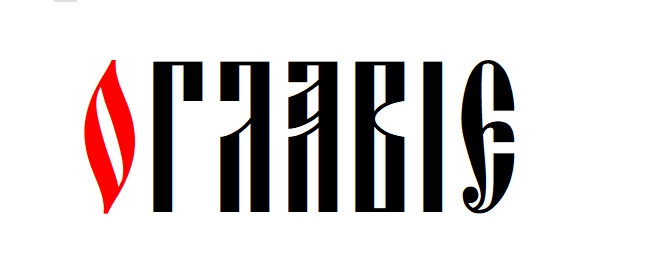
Oglavie Unicode Font
Oglavie Unicode Font is perfect for international publishing projects, multilingual corporate communications, global educational materials, cultural documentation systems, diplomatic correspondence, cross-cultural branding initiatives, academic research publications, and worldwide advertising campaigns. This comprehensive typeface works exceptionally well in both digital applications and print media where multilingual excellence and global accessibility are fundamental design requirements.
What makes Oglavie Unicode Font so exciting is its masterful interpretation of global communication needs through systematically designed letterforms that provide seamless support for diverse languages and scripts while maintaining consistent visual quality across all cultural contexts. The font features internationally optimized characters with universal proportions, cross-cultural spacing, and multilingual details that communicate global competence, cultural sensitivity, and the sophisticated understanding necessary for successful international communications. Its worldly personality and multicultural heritage make it ideal for organizations operating across diverse markets while appealing to global audiences who value cultural inclusivity and professional international standards.
The Oglavie Unicode Font family includes comprehensive Unicode support with extensive character sets covering multiple scripts, along with culturally appropriate alternates and international ornamental elements. Each style maintains the typeface's global character while offering extensive multilingual support, international numerals, cross-cultural punctuation marks, and special symbols designed to enhance worldwide communications and multicultural branding efforts across diverse linguistic and cultural contexts.
This extraordinary typeface represents the perfect convergence of linguistic diversity and contemporary typography for international organizations and global communications. Whether you're developing multinational corporate identities, creating cross-cultural educational materials, or designing worldwide diplomatic communications, Oglavie Unicode Font Free Download delivers the global accessibility and versatility needed for successful international relationships. The font's multicultural approach makes it particularly effective for international corporations, educational institutions, diplomatic organizations, and businesses operating across diverse cultural and linguistic boundaries worldwide.
The meticulously engineered multilingual construction and optimized international performance in Oglavie Unicode Font ensure maximum cultural sensitivity while maintaining clear communication across all global applications. Its inclusive presence makes it ideal for international branding, multicultural marketing materials, and cross-cultural communications where its full Unicode character can create meaningful connections with diverse audiences seeking professional quality and cultural respect in their global interactions.